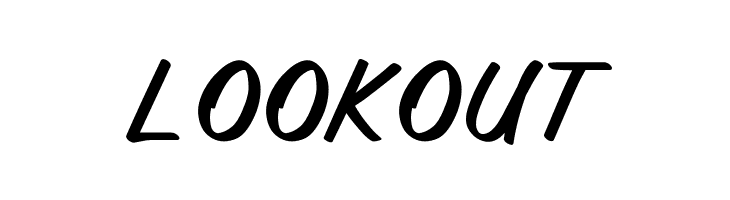
( Fonts by font3 )
A tall, narrow, handwritten sans-serif font with a casual feel.
( Fonts by Helotype )
A bold, bone-themed decorative font with a spooky, playful style.
( Fonts by Helotype )
Outline decorative font made of cartoon bones.
( Fonts by Gilang Ternadho )
Bold, decorative serif with playful, irregular shapes.
( Fonts by Mozatype )
Bold, dripping display font with a horror theme.
( Fonts by Scratchones )
Tall, narrow, dripping decorative font with a spooky vibe.
( Fonts by creatype designer )
Playful, decorative font with swirly, spooky details.
( Fonts by Md Shohail Bhuian )
Expressive, bold brush script with jagged, energetic strokes.
( Fonts by Kincrev Studio )
A spiky, aggressive display font with sharp, jagged forms.
( Fonts by Faqih Fawaji )
Bold, bone-themed decorative display font with playful curves.
( Fonts by Gilang Ternadho )
Bold, jagged display font with a wild, energetic style.
( Fonts by Edric Studio )
A spiky, horror-themed decorative display font with jagged edges.